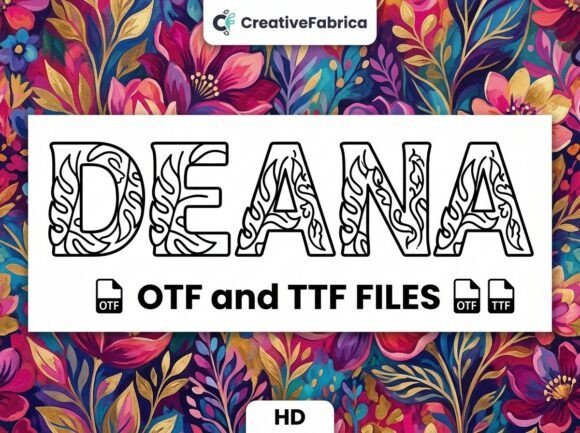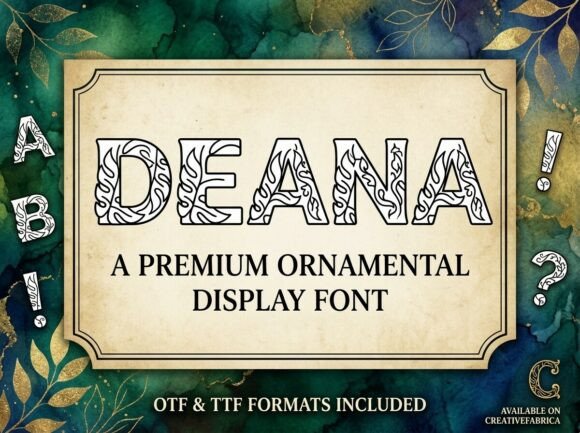
Unleash the Power of Organic Artistry with Deana Font
In the world of typography, few fonts capture the essence of nature’s beauty and vibrancy as stunningly as Deana. This decorative display font is a masterpiece of design, boasting bold, hollow letterforms that are intricately filled with a dense tapestry of rhythmic leaf patterns and botanical swirls. The result is a visual representation of a hidden garden, teeming with life and energy. Deana is more than just a font – it’s an experience, a statement, and a celebration of organic artistry.
The Inspiration Behind Deana
Deana’s design is rooted in the concept of bringing the natural world to the forefront of creative expression. The font’s creator aimed to craft a typography style that not only reflects the beauty of nature but also embodies its essence. Every detail, from the bold letterforms to the delicate leaf patterns, has been meticulously designed to evoke a sense of wonder and connection to the organic world.
Key Features of Deana Font
So, what makes Deana a standout font? Here are some of its key features:
- Bold, Hollow Letterforms: Deana’s letterforms are designed to make a statement. Their bold, hollow structure provides a striking foundation for the intricate patterns that fill them.
- Dense Tapestry of Leaf Patterns: The leaf patterns that fill Deana’s letterforms are a marvel of design. Each pattern is carefully crafted to create a sense of movement and energy, evoking the vibrant spirit of nature.
- Botanical Swirls: The botanical swirls that dance throughout Deana’s letterforms add an extra layer of depth and visual interest. These swirls create a sense of fluidity and connection to the natural world.
- Heavy Illustrative Weight: Deana’s heavy illustrative weight gives it a substantial, high-impact presence. This makes it perfect for designs that demand attention and want to make a lasting impression.
- Natural Personality: Deana’s natural personality shines through in its unique blend of organic and artistic elements. This font is perfect for designers and crafters who want to add a touch of whimsy and personality to their work.
Perfect Applications for Deana Font
Deana’s unique blend of style and personality makes it an excellent choice for a variety of design applications. Here are some of the perfect uses for Deana:
- Independent Apothecary Branding: Deana’s natural, earthy vibe makes it a perfect fit for independent apothecary branding. Use it to create labels, packaging, and marketing materials that reflect your brand’s commitment to natural, organic products.
- Eco-Conscious Product Packaging: Deana’s eco-friendly aesthetic makes it an excellent choice for eco-conscious product packaging. Use it to create packaging that not only stands out on store shelves but also communicates your brand’s values.
- Creative Studio Logos: Deana’s bold, illustrative style makes it a great choice for creative studio logos. Use it to create a logo that reflects your studio’s artistic personality and approach.
- Social Media Headers: Deana’s high-impact presence makes it perfect for social media headers. Use it to create eye-catching headers that grab attention and communicate your brand’s message.
Tips for Using Deana Font Effectively
To get the most out of Deana, here are some tips for using it effectively:
- Experiment with Color: Deana’s bold, hollow letterforms provide a great canvas for experimenting with color. Try using different colors to create a unique look that reflects your brand’s personality.
- Play with Patterns: Deana’s leaf patterns and botanical swirls offer endless possibilities for creative expression. Experiment with different patterns to create a unique look that sets your design apart.
- Mix and Match: Deana’s versatility makes it easy to mix and match with other fonts. Try pairing it with a sans-serif font for a bold, modern look or with a script font for a more elegant, sophisticated feel.
Deana font is a game-changer for designers and crafters who want to add a touch of organic artistry to their work. With its bold, hollow letterforms, dense tapestry of leaf patterns, and botanical swirls, Deana is the perfect choice for independent apothecary branding, eco-conscious product packaging, creative studio logos, and high-impact social media headers. Whether you’re looking to make a statement or simply want to add some personality to your design, Deana is the premier choice for any project.